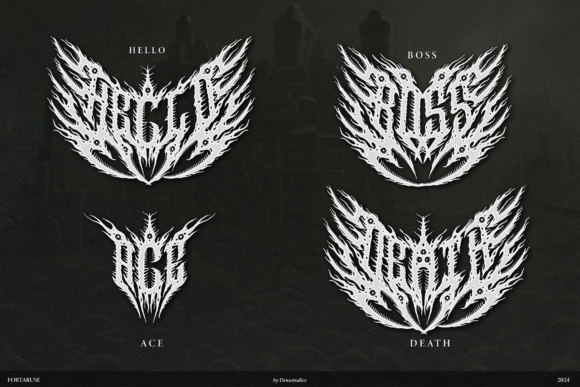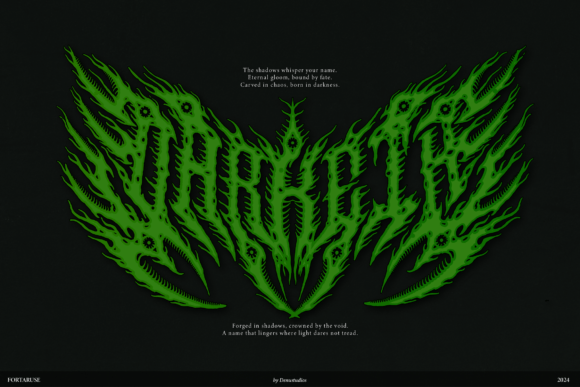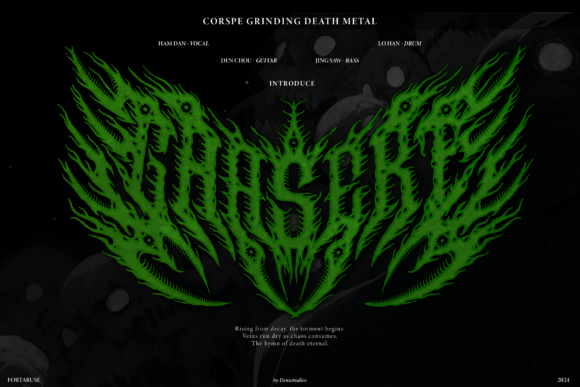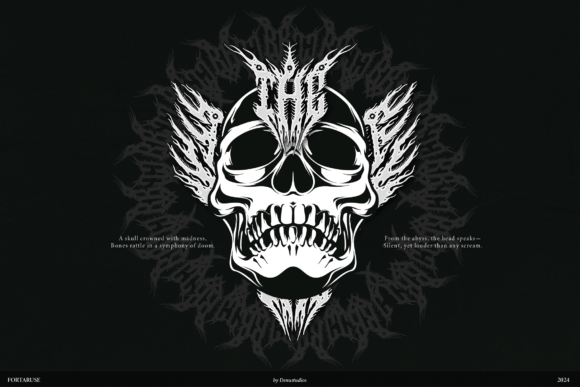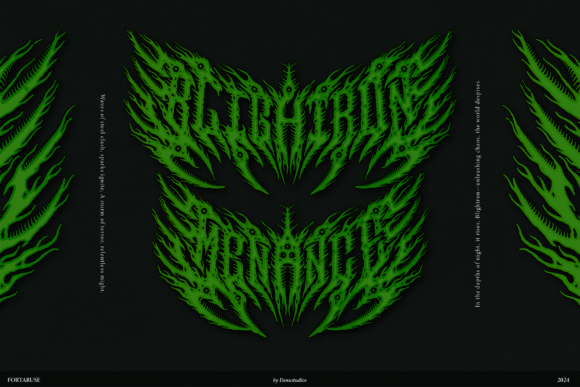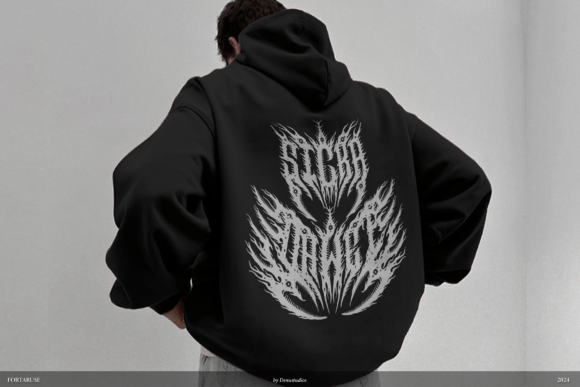
Unleash the Fury: Discover the Fortaruse Font
Are you a designer, artist, or crafty individual looking to add a touch of darkness and intensity to your projects? Look no further than the Fortaruse Font, a death metal-inspired typeface that embodies the raw energy and mystique of the genre. This fiercely captivating font is perfect for creating haunting, unforgettable visuals that will leave a lasting impression on your audience.
The Inspiration Behind Fortaruse
Fortaruse is more than just a font – it’s a work of art that draws inspiration from the dark, aggressive world of death metal music. The font’s creator aimed to capture the chaos, brutality, and ominous energy that defines the genre, and succeeded in crafting a typeface that is both menacing and mesmerizing. Each letter is a masterpiece, with jagged edges, intricate organic shapes, and sinister all-seeing eye details that seem to stare back at you.
Design Features of Fortaruse
So, what makes Fortaruse so unique? Here are just a few of the design features that set it apart:
- Jagged Edges: Fortaruse’s letters are characterized by their rough, jagged edges, which give the font a raw, unbridled feel.
- Intricate Organic Shapes: The font features intricate, organic shapes that add a level of complexity and depth to each letter.
- Sinister All-Seeing Eye Details: Many of the letters in Fortaruse feature all-seeing eye details, which add to the font’s ominous, unsettling vibe.
Perfect for Metal Band Logos, Album Covers, and More
Fortaruse is the ultimate choice for designers and artists working on projects related to the metal music scene. Here are just a few ideas for using this versatile font:
- Metal Band Logos: Create a logo that embodies the intensity and energy of a death metal band with Fortaruse.
- Album Covers: Design an album cover that stands out from the crowd with Fortaruse’s bold, attention-grabbing letters.
- Horror Posters: Add a touch of darkness and terror to your horror posters with Fortaruse’s eerie, unsettling vibe.
- Underground Event Designs: Create eye-catching posters and flyers for underground metal events, concerts, and festivals with Fortaruse.
Why Choose Fortaruse?
With so many fonts available, why choose Fortaruse? Here are just a few reasons why this font stands out:
- Uniqueness: Fortaruse is a one-of-a-kind font that will set your designs apart from the crowd.
- Versatility: This font can be used for a wide range of projects, from metal band logos to horror posters.
- Emotional Connection: Fortaruse taps into the raw energy and emotion of the death metal genre, creating a deep connection with fans and enthusiasts.
In conclusion, Fortaruse is a death metal-inspired font that is sure to make a statement in your designs. With its jagged edges, intricate organic shapes, and sinister all-seeing eye details, this font is perfect for creating haunting, unforgettable visuals that capture the chaos and brutality of the genre. Whether you’re a designer, artist, or crafty individual, Fortaruse is the ultimate choice for adding a touch of darkness and intensity to your projects.